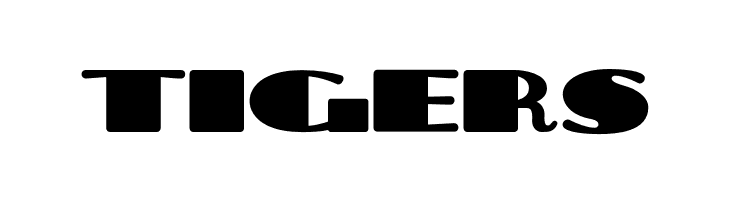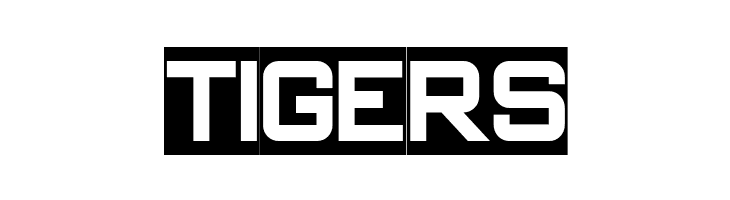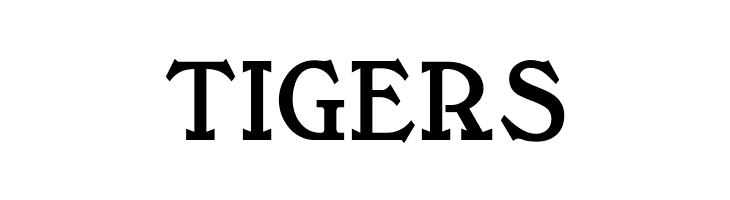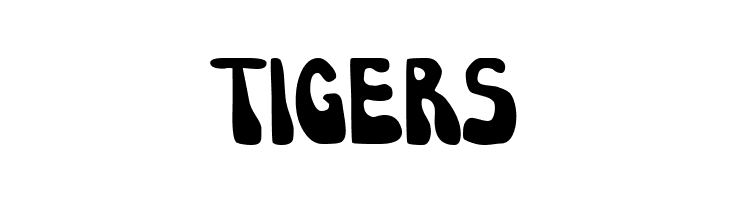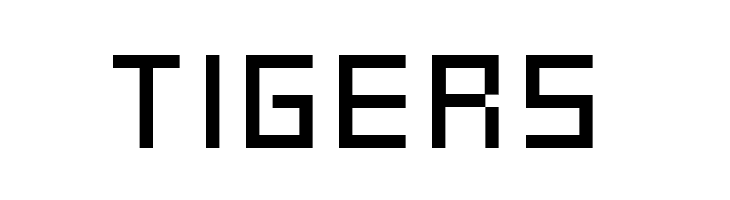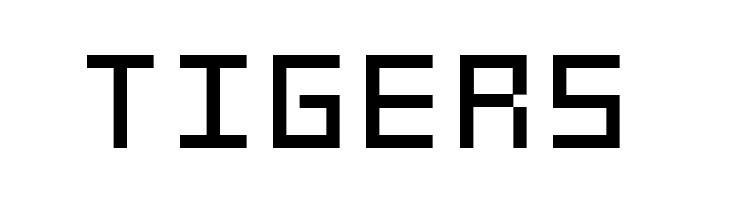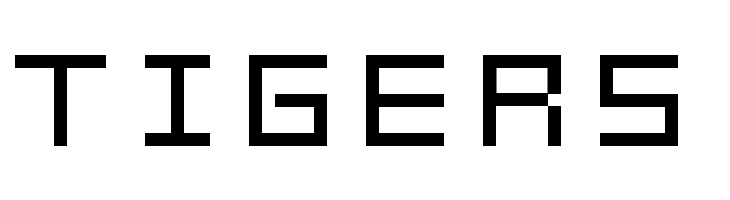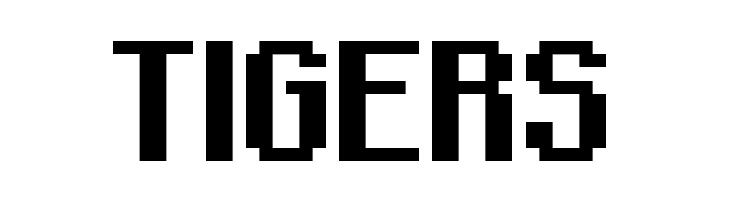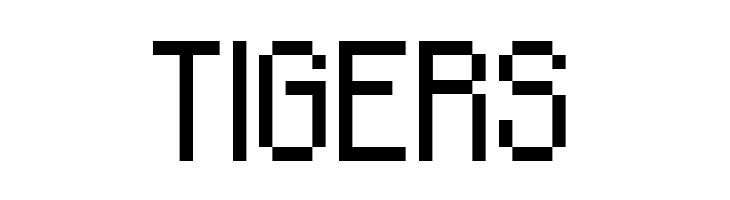
A futuristic, minimalist font with thin, geometric lines and a sleek design.
A bold, outlined font with a strong, impactful design.
A bold, rugged font with uneven, jagged edges for a distressed look.
A playful, handwritten font with a casual and friendly vibe.
A decorative and futuristic font with geometric patterns and ornamental details.
A rugged, distressed font with a hand-crafted, organic feel.
A bold, 3D cube-style font with high contrast and geometric design.
A bold, 3D block-style font with geometric and industrial influences.
A bold, three-dimensional block font with a geometric and industrial style.
A bold, geometric font with characters enclosed in blocks, ideal for industrial-themed designs.
A classic serif font with bold, bracketed serifs and a strong, traditional presence.
A bold serif font with a classic yet modern style.
A bold, geometric font with strong, uniform strokes and a modern style.
A bold, rounded font with a playful and modern aesthetic.
A bold, rounded font with a playful and modern design.
A bold, playful font with exaggerated curves and a retro-modern appeal.
A gothic, medieval-style font with sharp, elongated strokes and intricate detailing.
A pixelated, retro-style font with a blocky, geometric design.
A bold, rounded font with a modern and playful style.
A bold, rounded, and modern font with a playful and approachable style.
A playful dingbat font with school-themed icons.